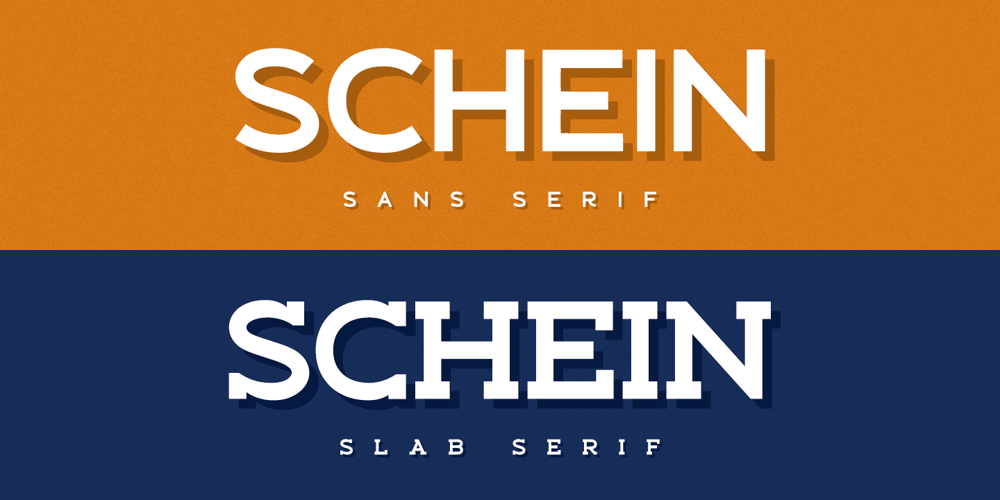
Schein Font Family was designed by Abdul Malik Wisnu and published by Almarkha Type. Schein contains 2 styles and family package options. Schein – Sans & Slab inspired by the famous minimalist logo and perfect for the purposes of designing templates, brochures, videos, advertising branding, logos and more.